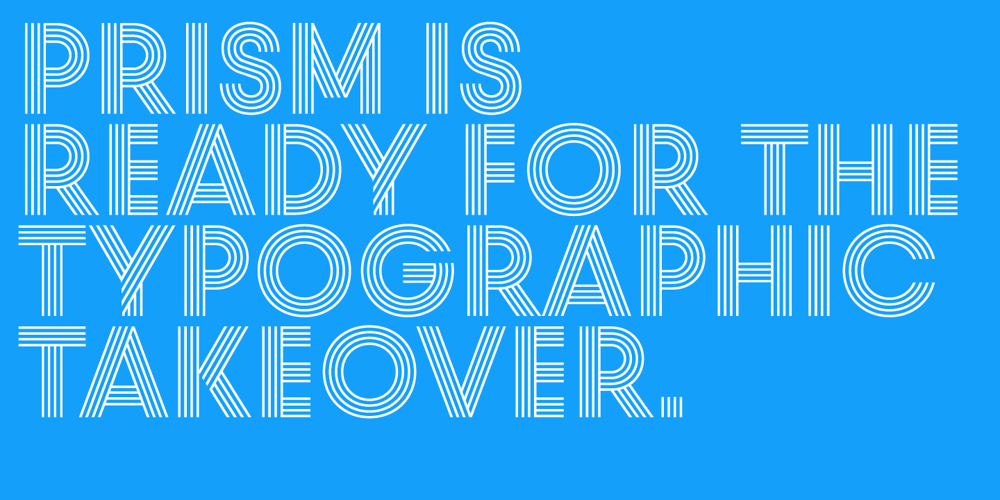
Prism Font Family was designed by Sascha Timplan and published by Stereotypes. Prism contains 10 styles and family package options. Prism was mainly inspired by two things, the sketches of Rudolf Koch for Prisma and the proportions of Avant Garde by Herb Lubalin. Even when the proportions and widths stay the same from ExtraLight to Black, you get the opportunity to change the weight and get a complete new look for that typeface by changing the grayscale or color. It is a modern combination for headlines, that want to have a different look.